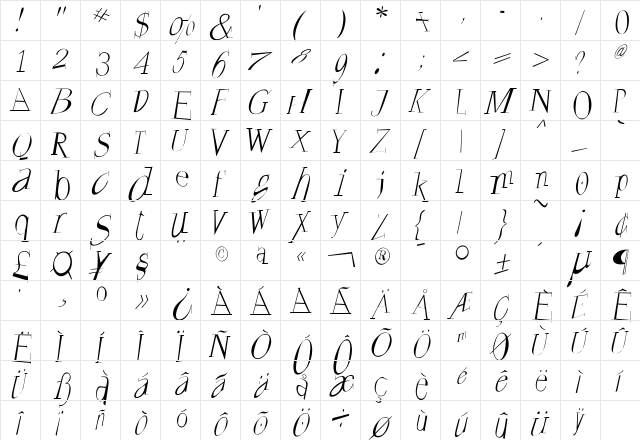
FrancoforteSerifus Regular
Design Context for FrancoforteSerifus Typeface
FrancoforteSerifus brings classic typographic sensibility to the table — its serifs and measured letterforms reflect centuries of print heritage.
Pro Tip: Set FrancoforteSerifus with slightly loose tracking in headlines to let each letterform's detail read clearly at display sizes.